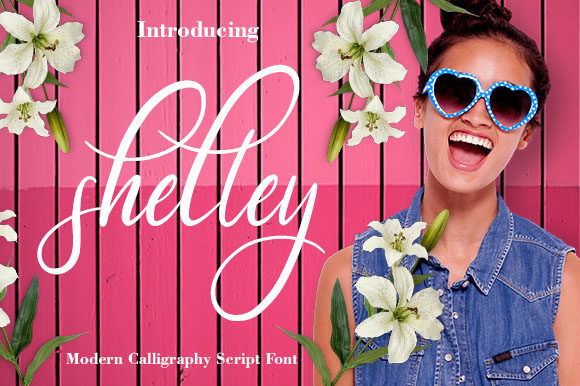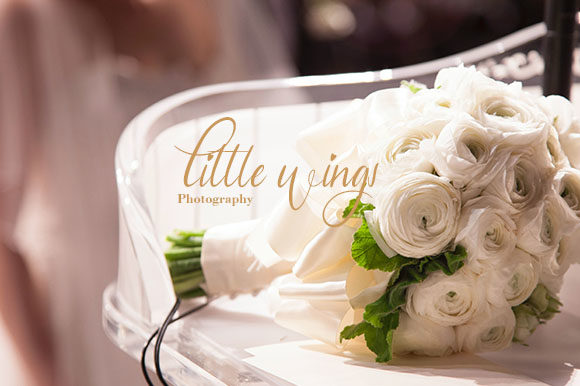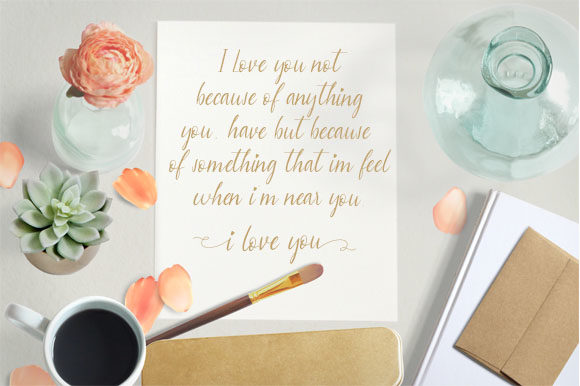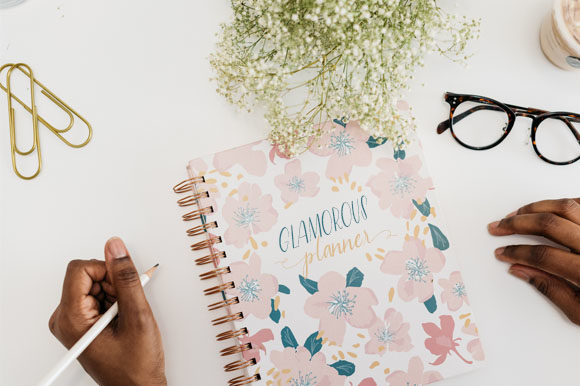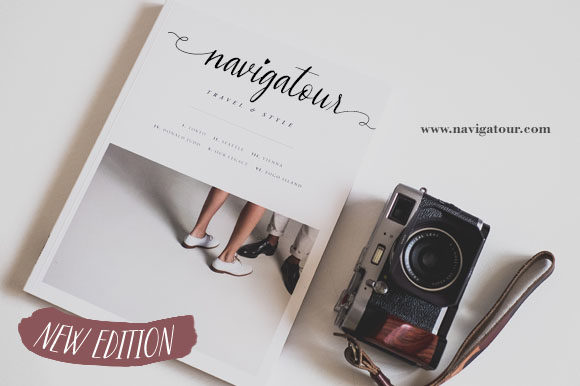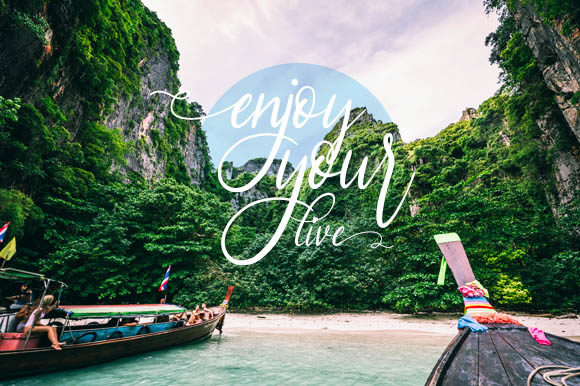
Shelley Font
About Shelley Font
Shelley is a modern calligraphy script, flowing and elegant. It looks stunning on wedding invitations, thank you cards, quotes, greeting cards, logos, business cards and every other design which needs a handwritten touch.